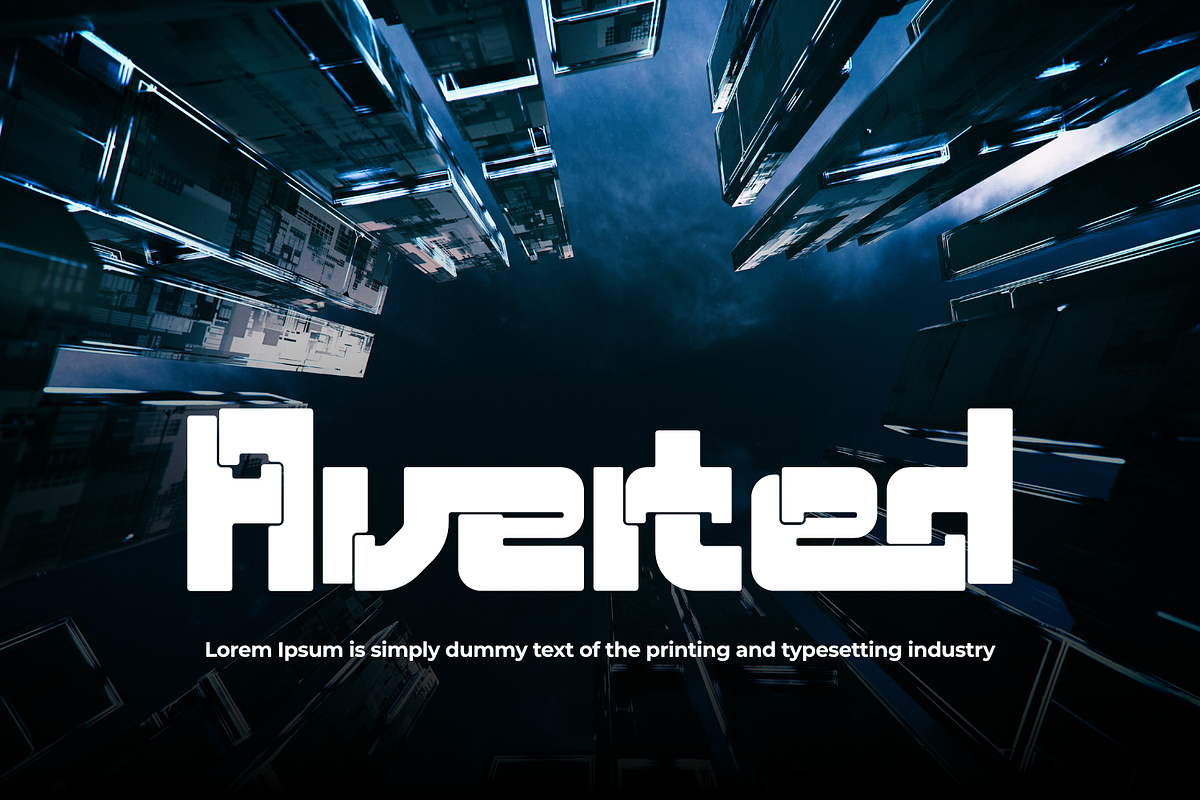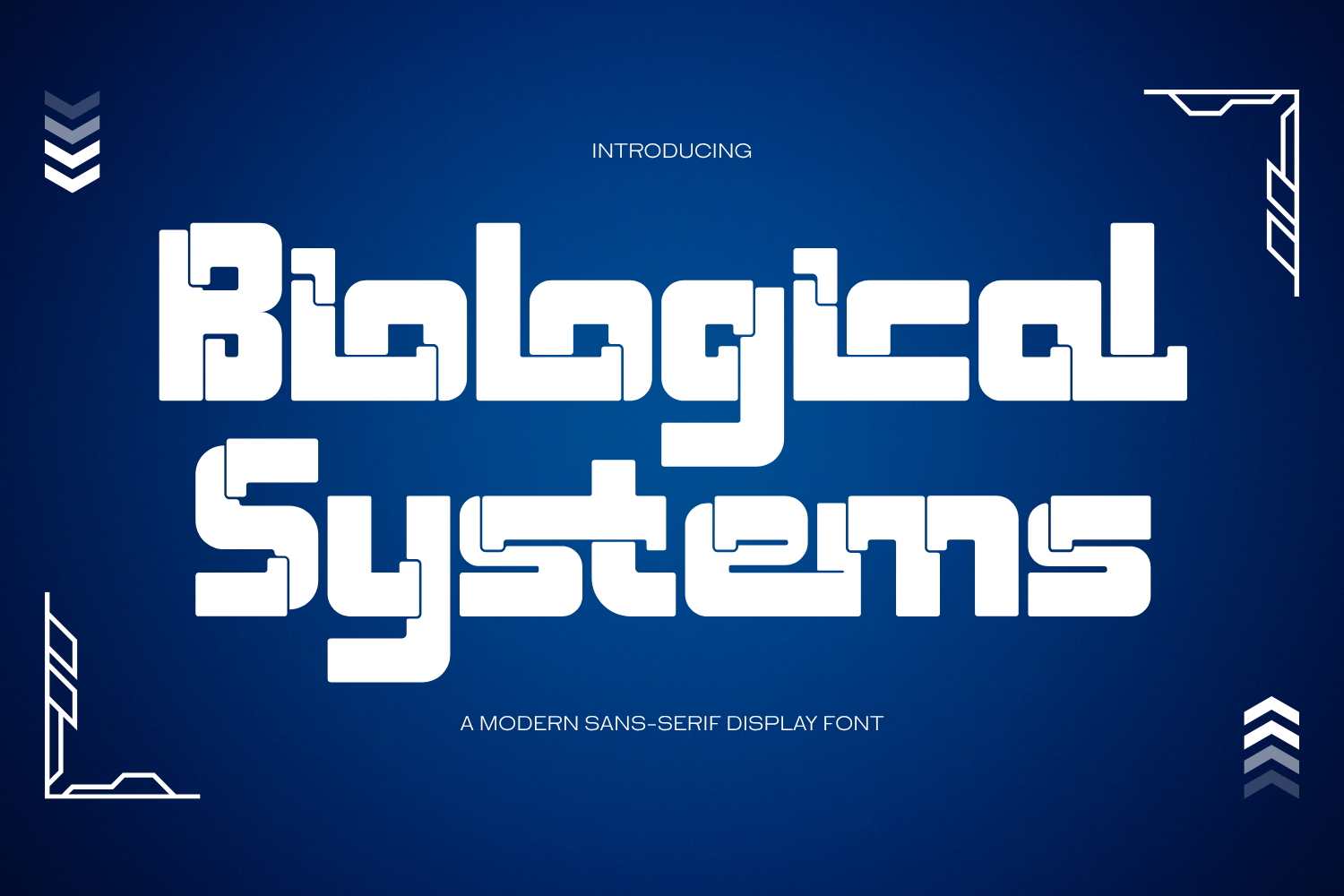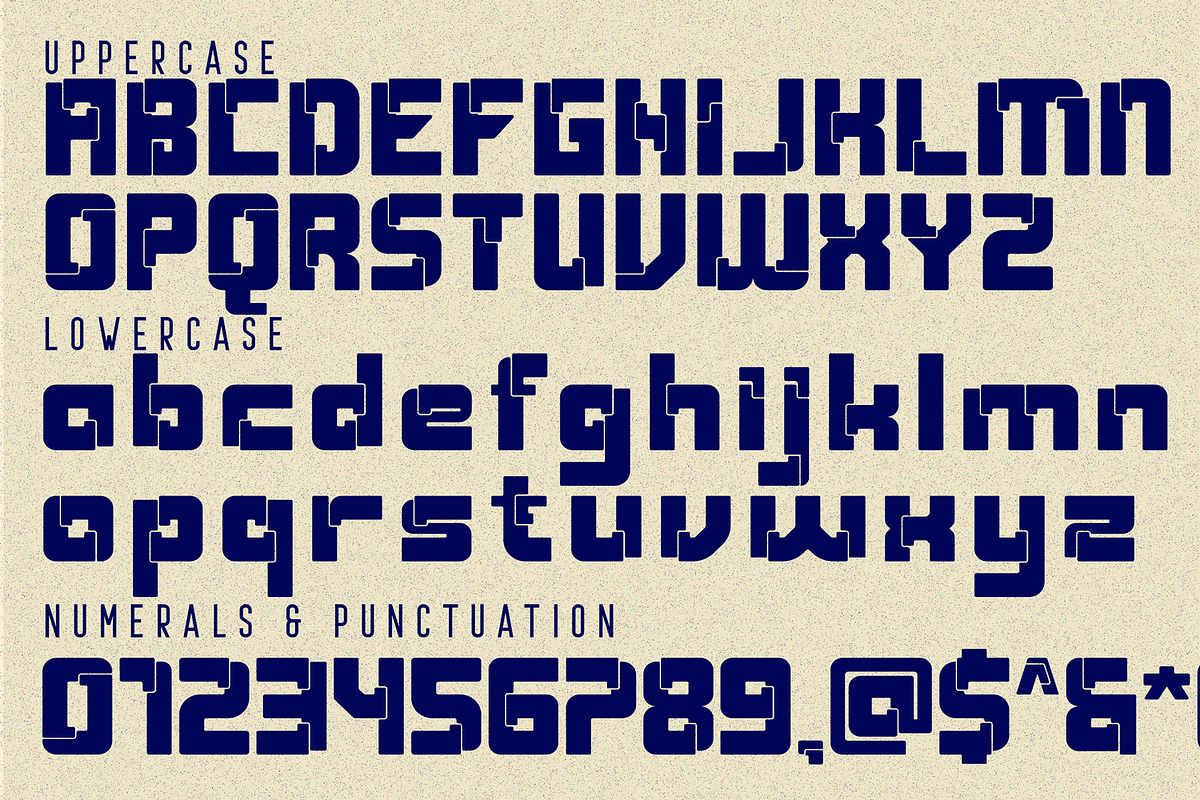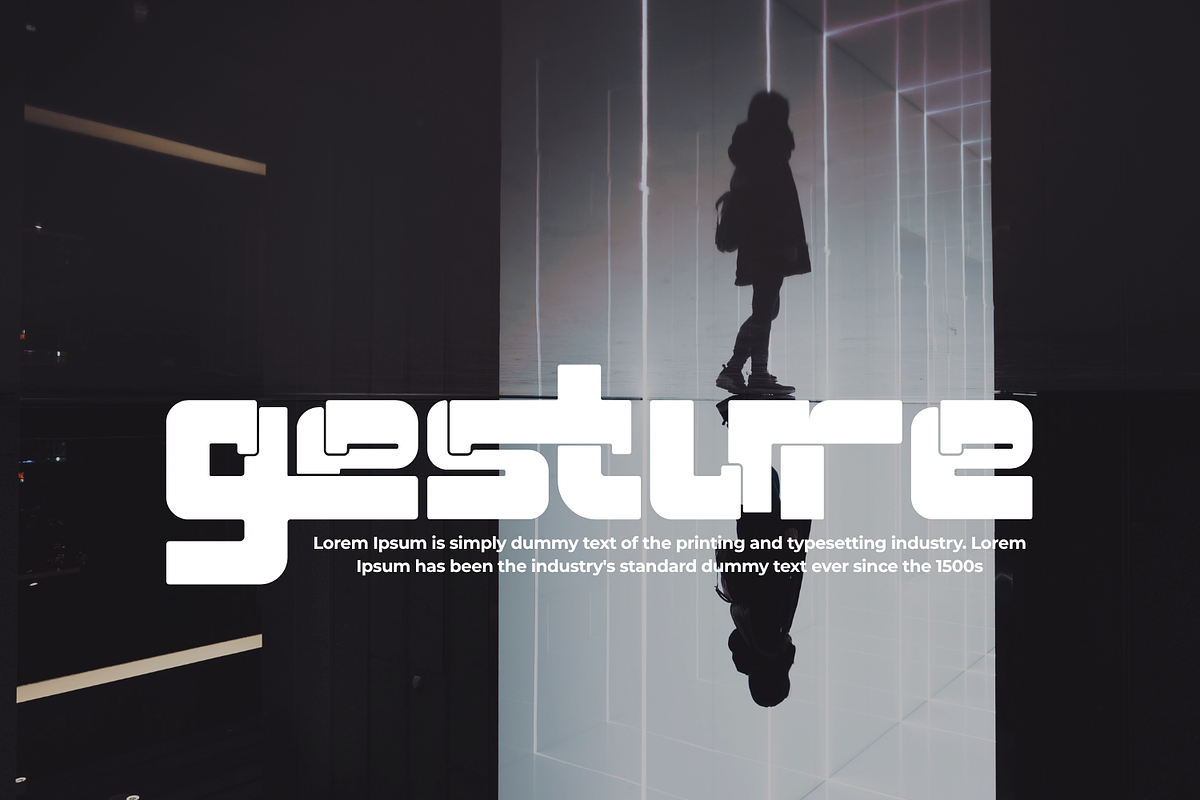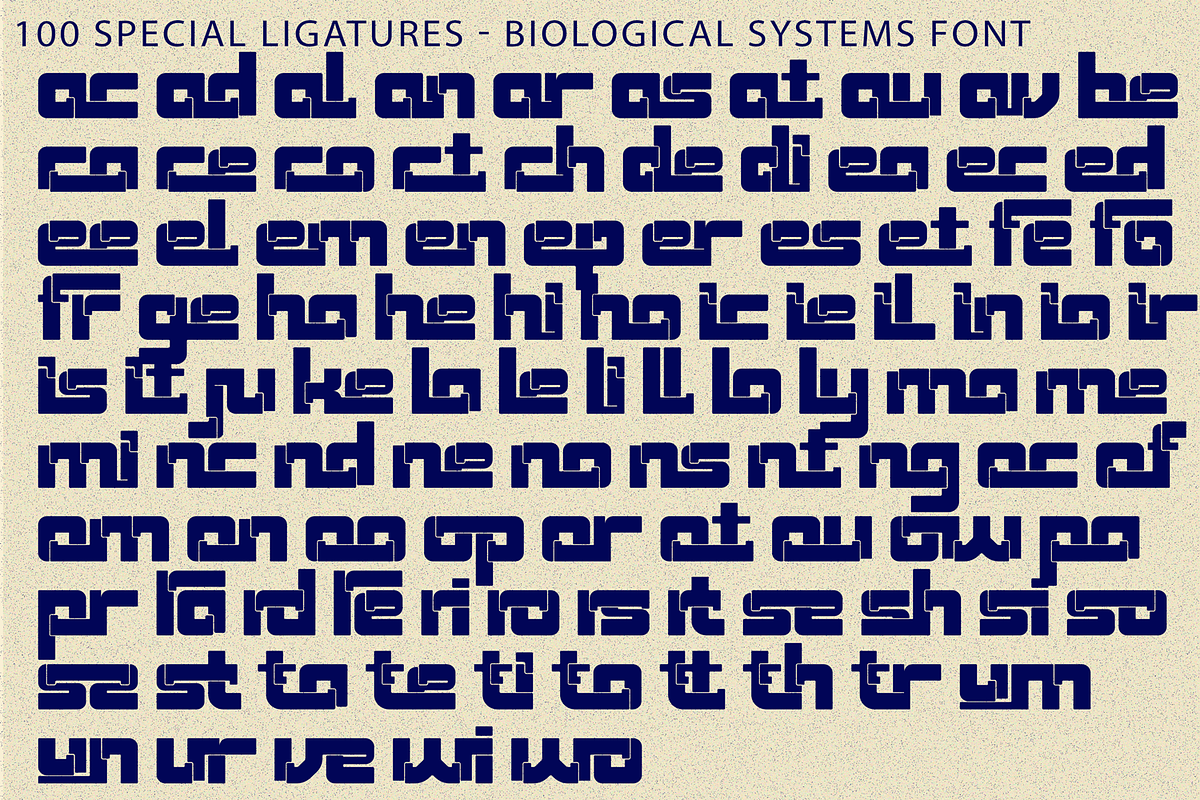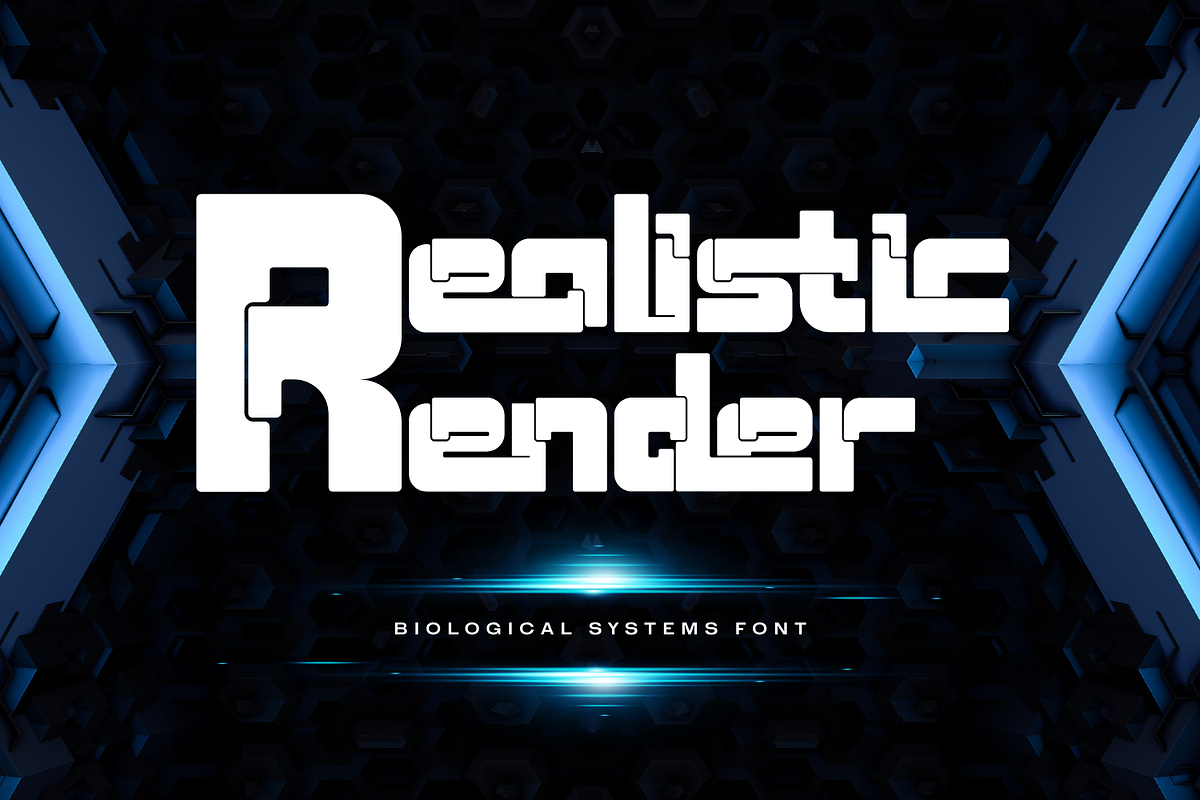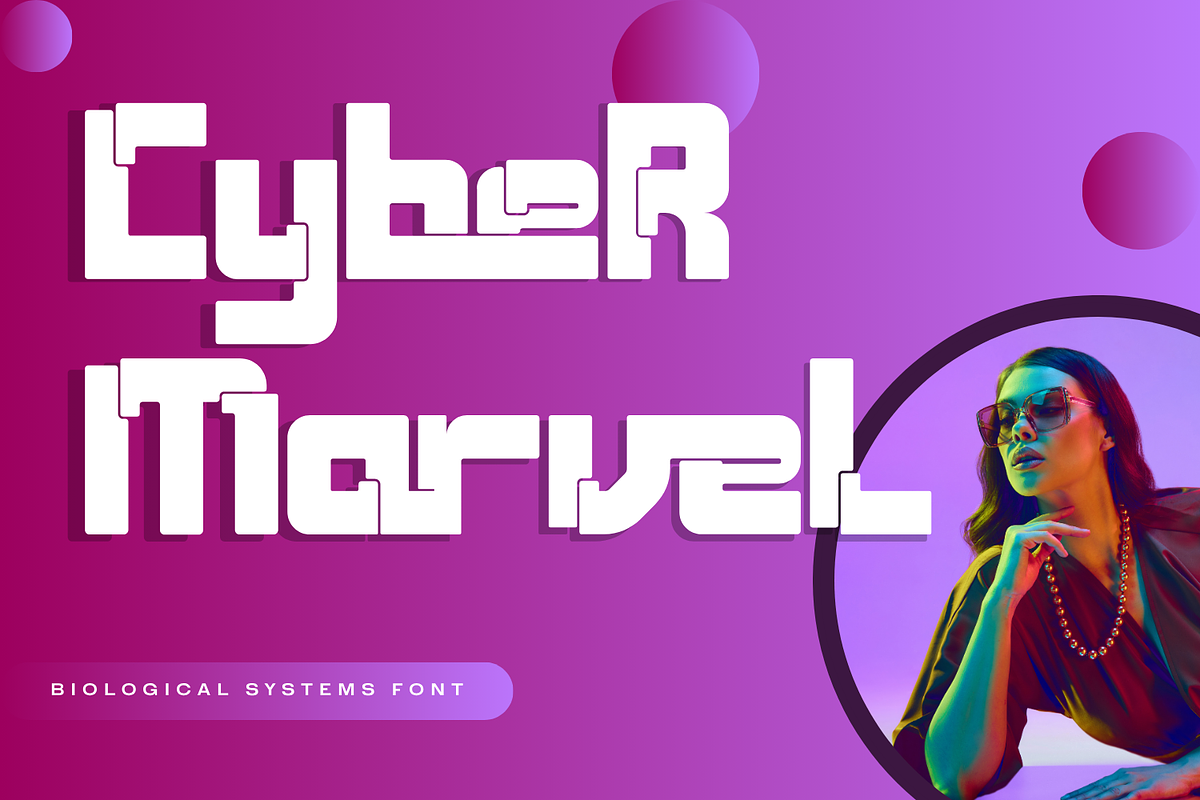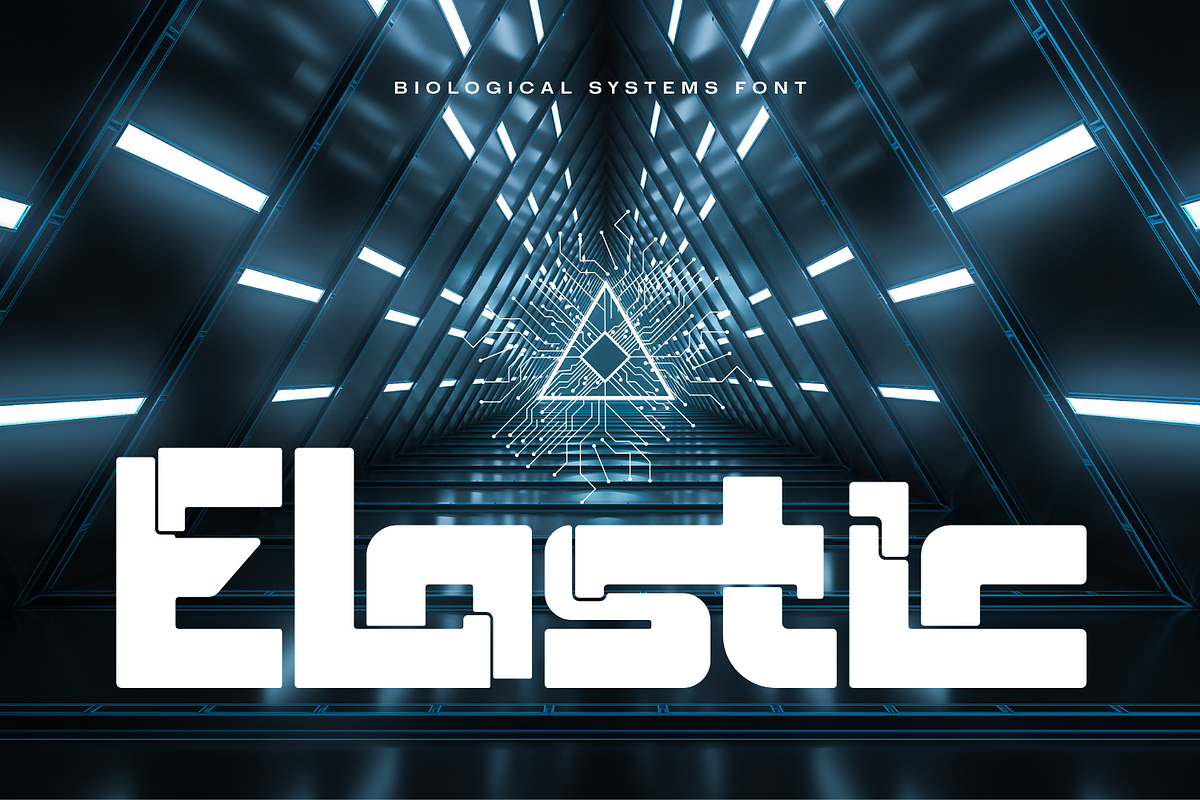
Biological Systems - Tech Font
Biological Systems - Tech Font is a modern futuristic display typeface built on a modular geometric system. Featuring bold blocky forms with smooth rounded corners and sharp structural cuts, this typeface delivers a clean yet powerful high-tech aesthetic. Designed with interlocking letterforms and consistent monoline weight, Biological Systems creates a strong visual rhythm that feels both digital and mechanical. Its compact structure and balanced proportions make it ideal for headlines, logos, UI design, and tech-focused branding.
🔤Features:
- Uppercase & Lowercase Letters
- Around 100 Special Ligatures & Alternates
- Accented Characters for multilingual support
🔤About 100 ligatures combined with Stylistic Alternates Font:
ac ad al an ar as at au av be ca ce ch co ct de di ea ec ed ee el em en ep er es et fe fo fr ge ha he hi ho ie ic il in io ir is it ju ke la le li ll lo ly ma me mi nc nd ne ng no nt ns oc of om on oo op or ot ou ow pa pr ra rd re ri ro rs rt se sh si so ss st ta te th ti to tr tt um un ur ve wi wo